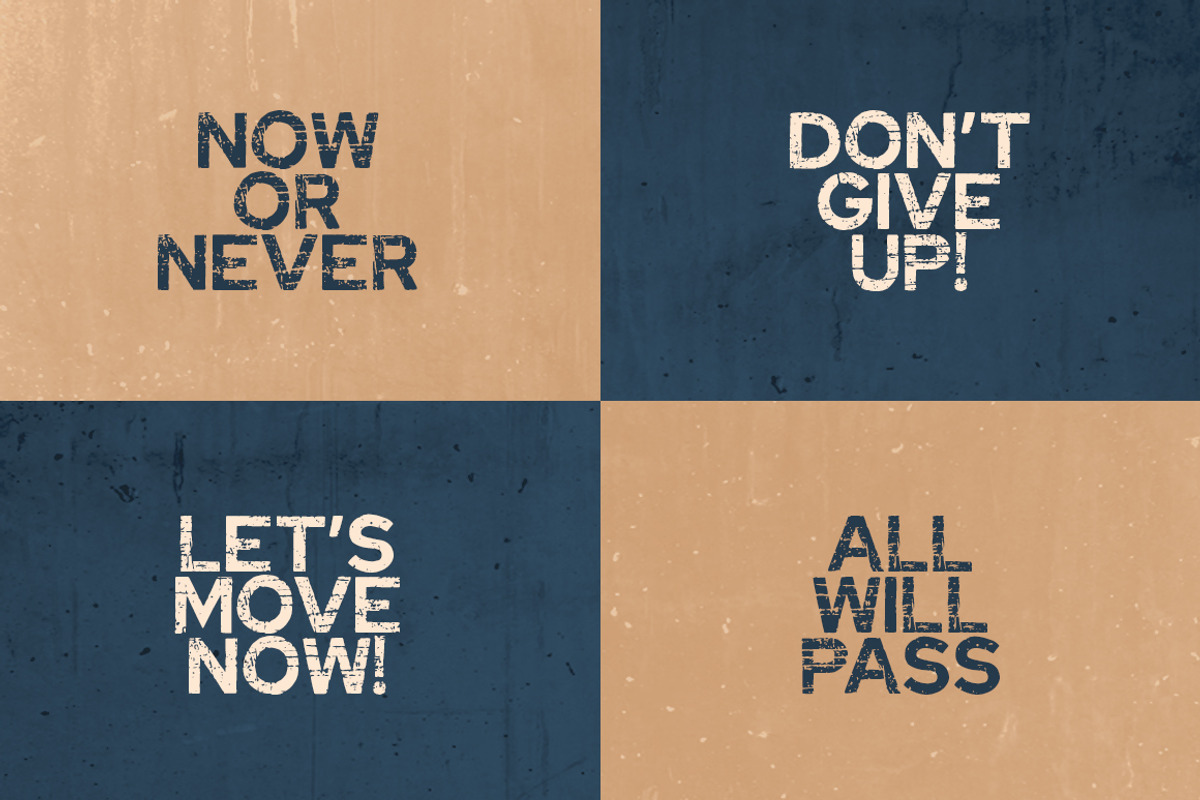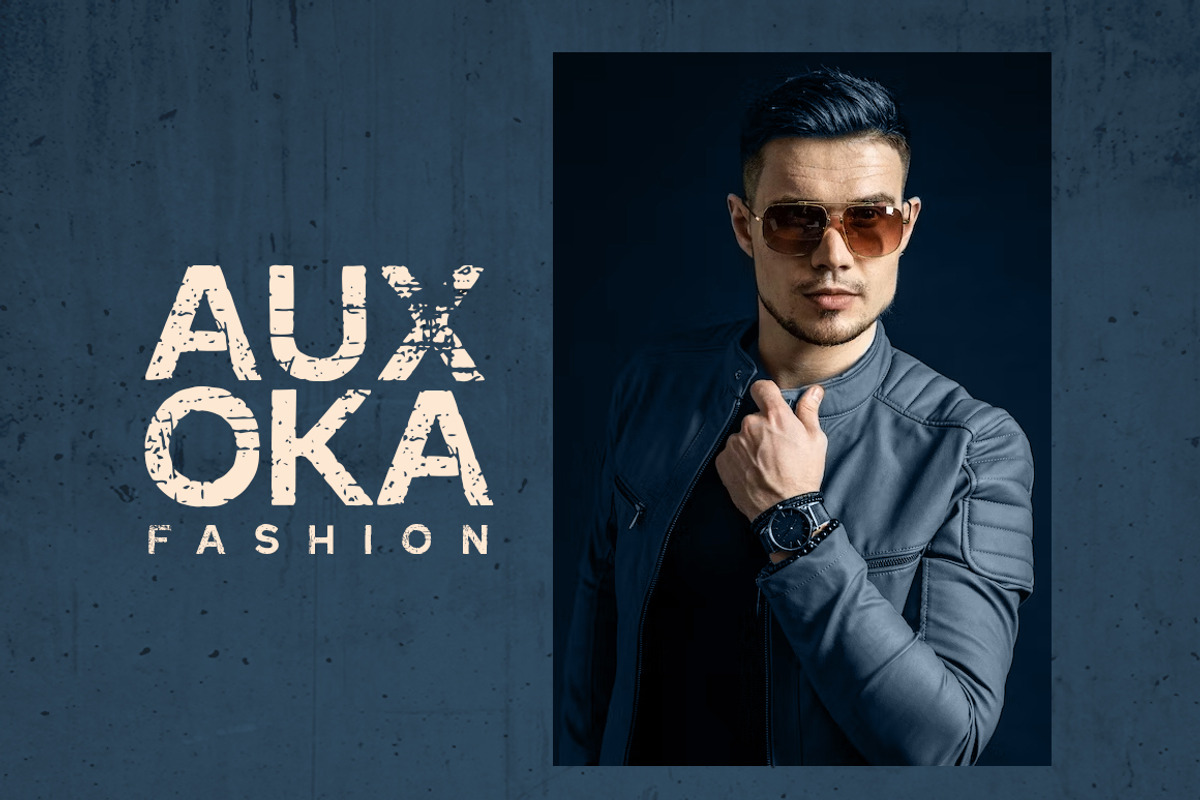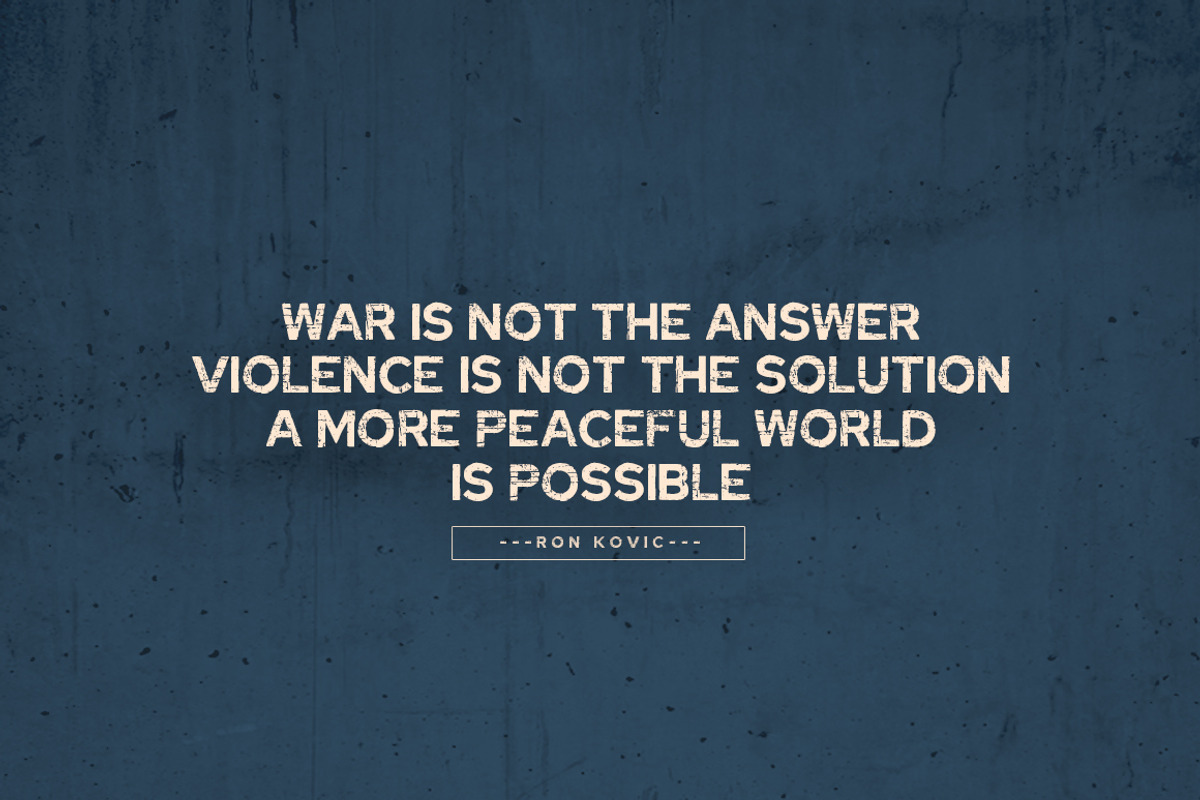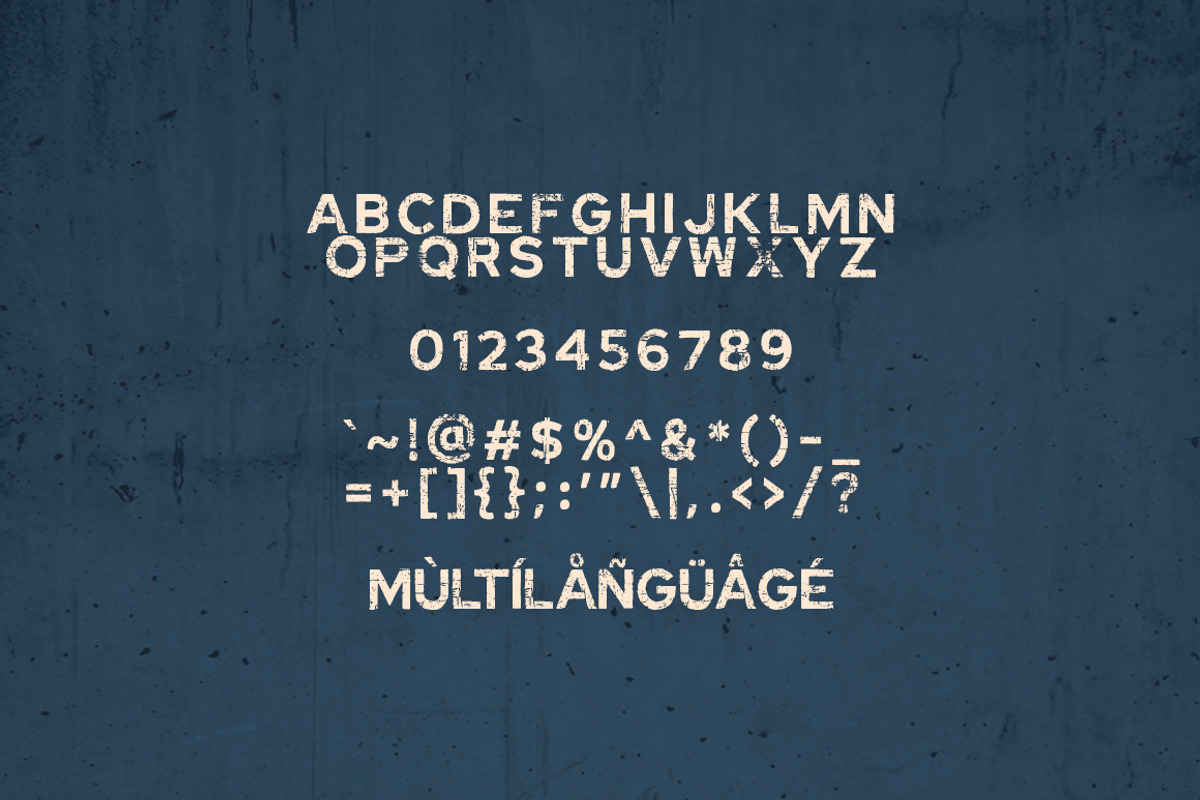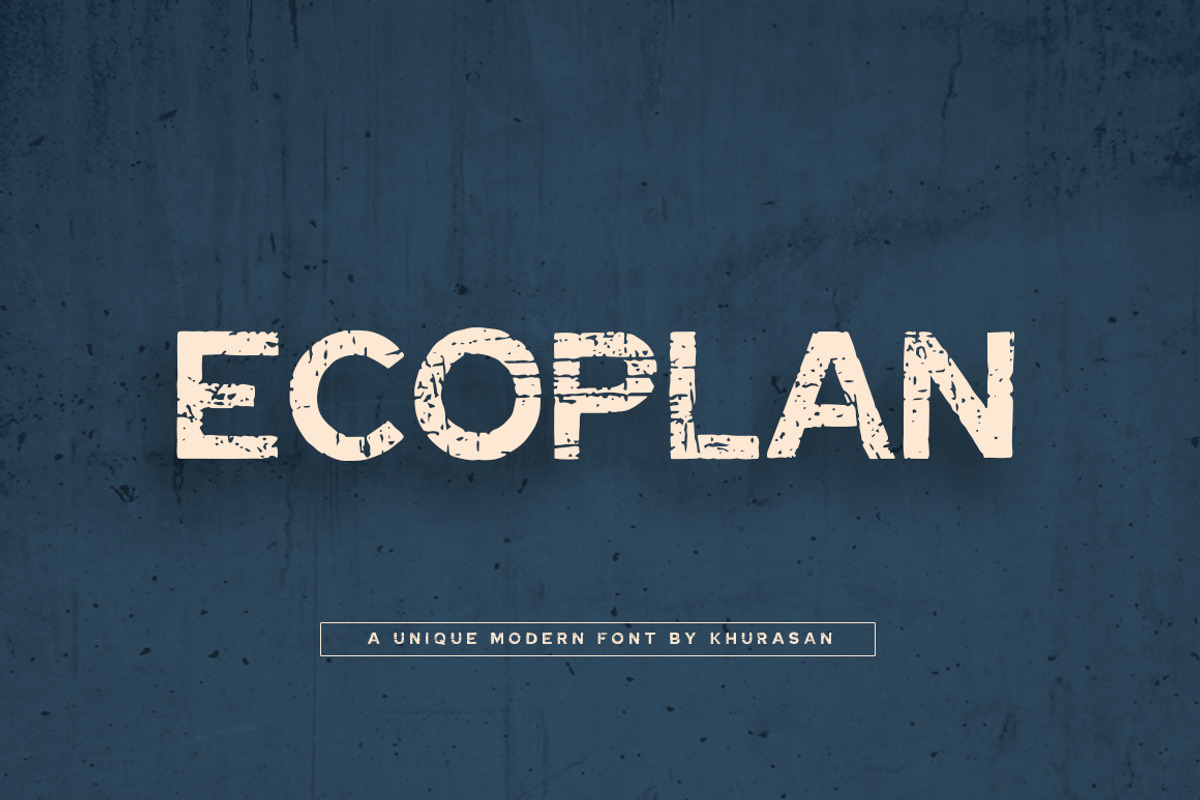
Ecoplan
The Ecoplan is a modern rough sans serif font, elegant and modern feel character set. Ecoplan font as well as multi-lingual support, uppercase, numerals, & punctuation.